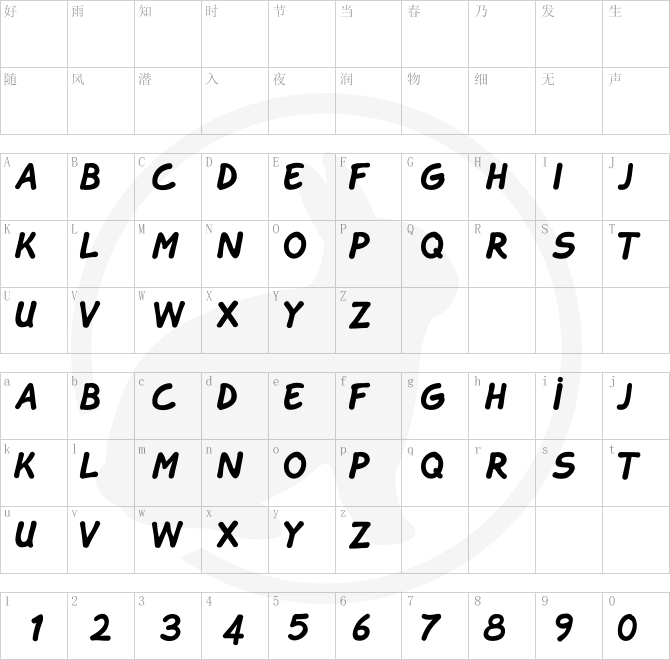
- Font Name:Tahtelbahir komik
Tahtelbahir-komik-Regular.ttf is a very beautiful artistic font, Tahtelbahir-komik-Regular.ttf is widely used in the design and printing of various books and pictures,Tahtelbahir-komik-Regular.ttf has a strong visual impact,Tahtelbahir-komik-Regular.ttf is a commonly used font in newspapers, magazines and books, and is used in posters, e-commerce Poster design, store design, logo design, font design and other fields.Tahtelbahir-komik-Regular.